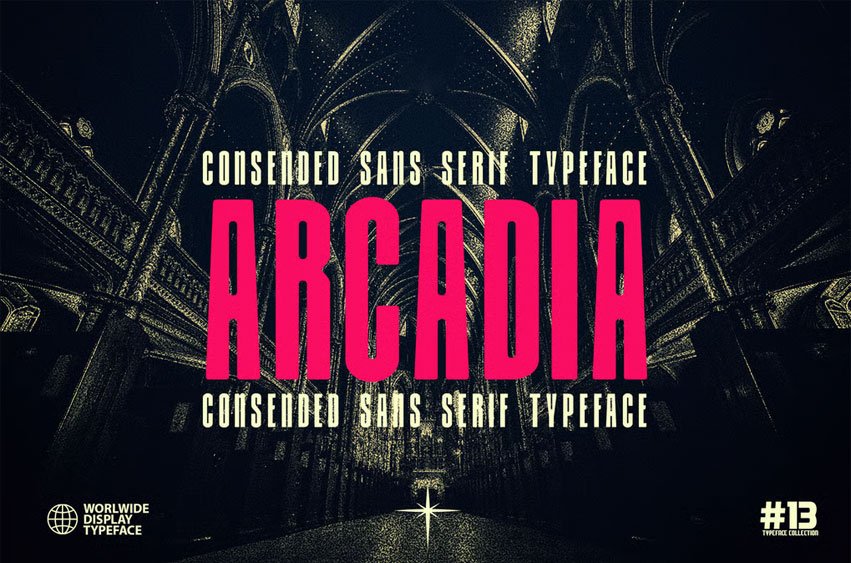
Arcadia Font Condensed Sans Serif Typeface. Arcadia is a simple condensed and modern display font. This bold and clean font can easily become your favorite.
It can be used for books, magazines, social media posts, invitations, and so much more!